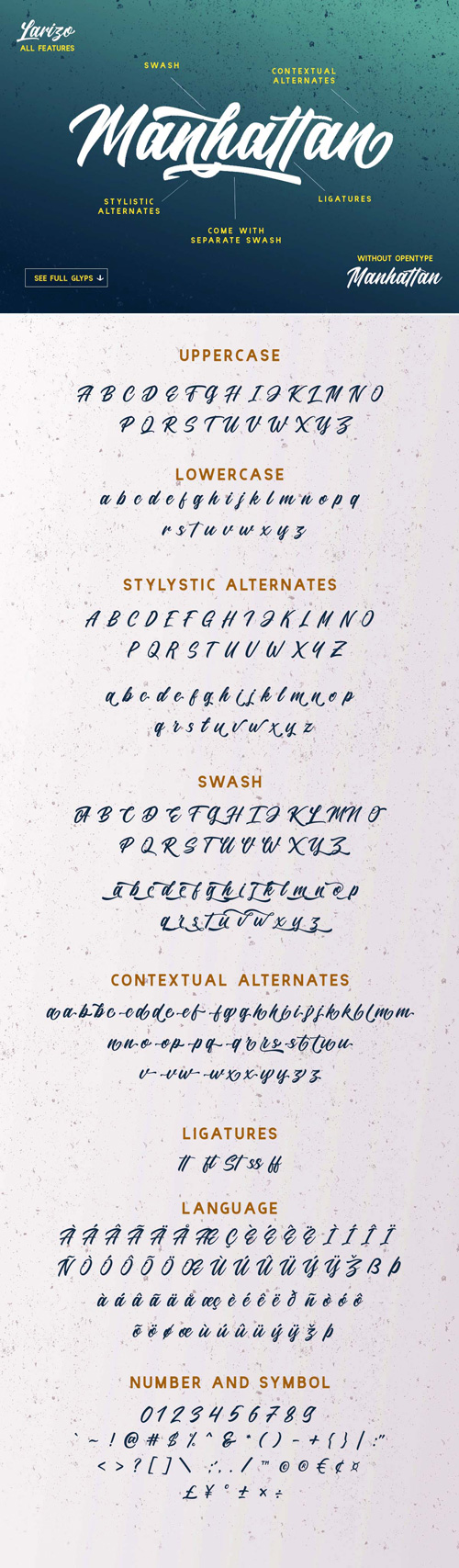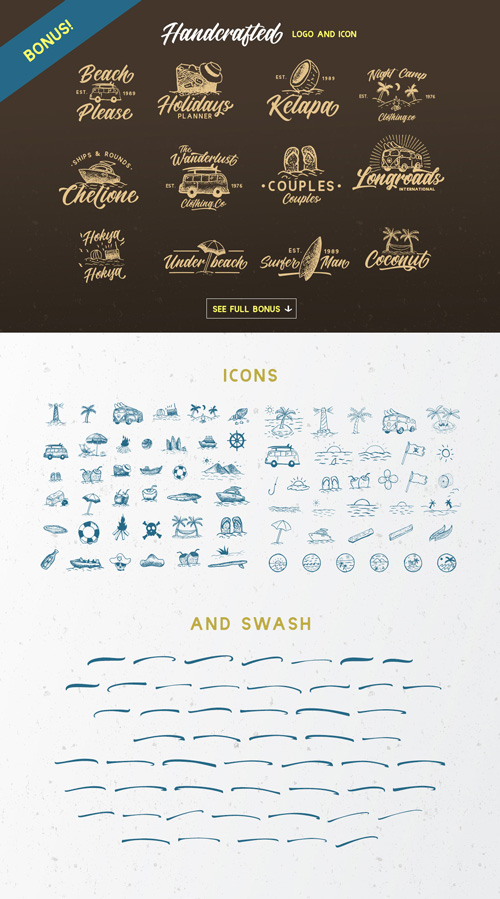
- Introducing, Larizo Script. A truly personalized handmade lettering that transformed into a font! This font has unique character and flow feel which is perfect to use in logotype / wordmark,badge, sign board, poster, headline text, apparel, wedding invitation, etc. This font has many opentype features like ligature, stylistic alternate, contextual alternate, swash, etc and support multi language. You will also get ready made logo templates and icons in beach theme!